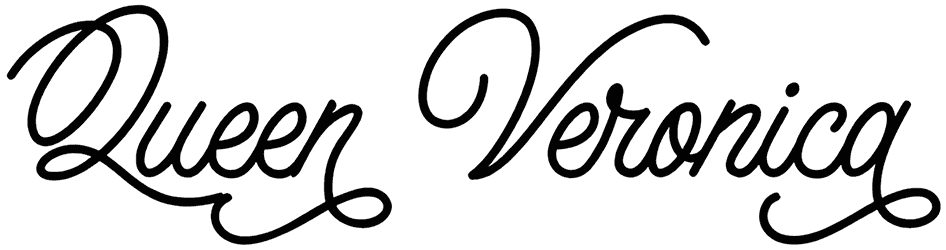
Queen Veronica Font
We would like to offer you a magical script font such as Queen Veronica that easily adds a personalized handwritten touch to any kind of content, including business cards, diplomas, flyers, invitations, and social media posts.
Due to its sophisticated flow, reading its characters would be a little tricky for some people, but it won’t be problematic. We believe that sharing a sense of softness, professionalism, and delicacy makes up for the lack of numbers.